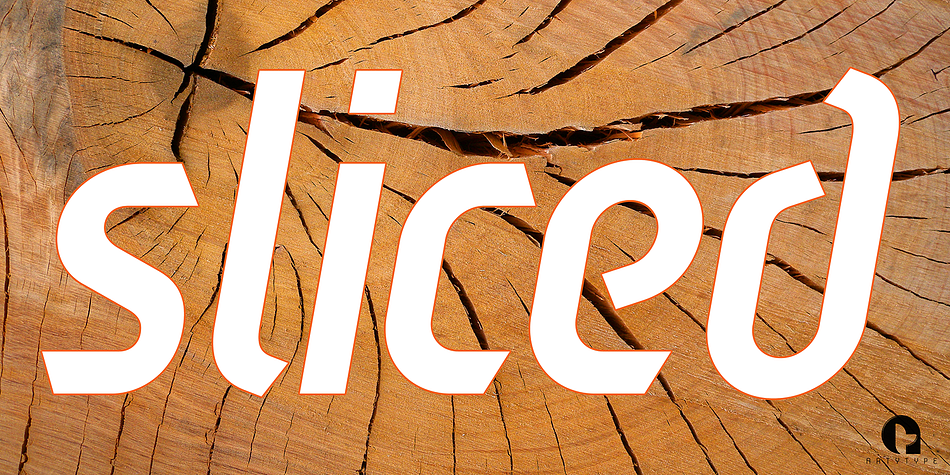
Sliced Open
Sliced Open is a display sans font family. This typeface has seven styles and was published by ArtyType.
This type family is the lighter, more open companion to the eye-catching Sliced volume, a masculine display face with boldly sliced terminals and angles, available in 3 widths.
Displaying the beauty and characteristics of the Sliced Open font family.
Highlighting the Sliced Open font family.
Sliced Open font family sample image.
Sliced Open is a a seven font family.
Sliced Open font family example.
Sliced Open font family sample image.
Sliced Open is a seven font, display sans family by ArtyType.
Sliced Open includes OpenType Standard Ligatures and has good Latin language support.
Sliced Open is a display sans font family.
This type family is the lighter, more open companion to the eye-catching Sliced volume, a masculine display face with boldly sliced terminals and angles, available in 3 widths.